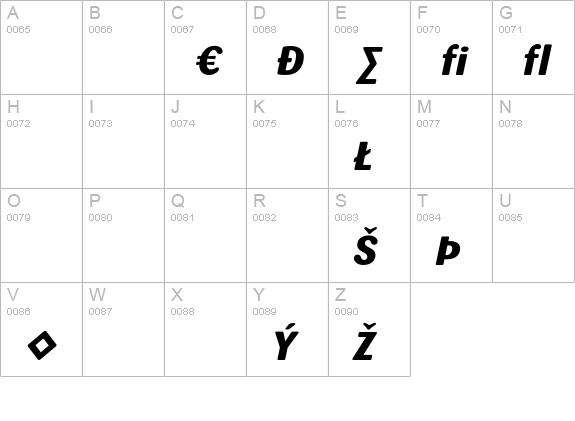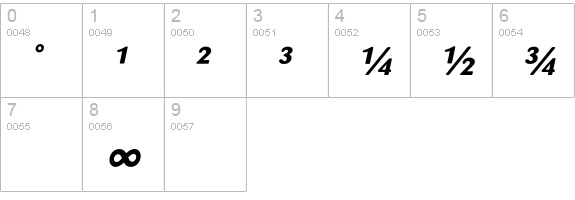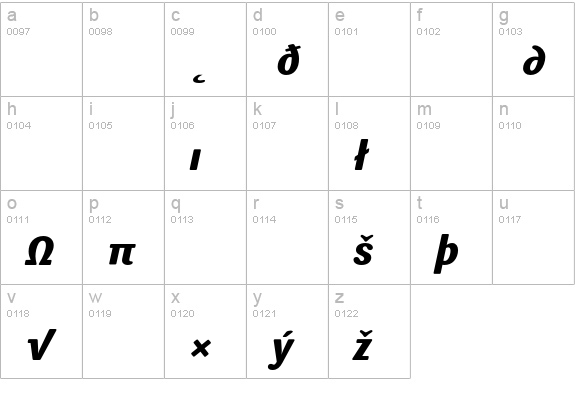
Sari-ExtraBoldItalicExp Font Details
Introducing Sari-ExtraBoldItalicExp, a truly captivating and distinctive font that effortlessly combines elegance with a touch of boldness. This font is the perfect choice for those seeking to make a statement, as it commands attention and exudes confidence. Sari-ExtraBoldItalicExp features a unique and eye-catching italicized style, adding a dynamic flair to any design project. Its boldness adds weight and emphasis to your text, while the italicized slant adds a sense of movement and energy. The result is a font that is both striking and sophisticated, making it ideal for headlines, titles, logos, and more. What sets Sari-ExtraBoldItalicExp apart is its versatility. It can effortlessly transition from a modern and edgy aesthetic to a classic and timeless design. Its clean lines and well-defined curves ensure legibility, even at smaller sizes, making it suitable for both print and digital media. But what truly sets Sari-ExtraBoldItalicExp apart is that it is available for free download at FontsMarket.com. This means that anyone can have access to this remarkable font without any cost. Whether you are a professional designer, a student, or simply someone who appreciates the art of typography, Sari-ExtraBoldItalicExp is a font that should not be missed. So why wait? Visit FontsMarket.com today and download Sari-ExtraBoldItalicExp for free. Unleash your creativity and elevate your designs with this extraordinary font. It is a true gem that will undoubtedly leave a lasting impression on any project.